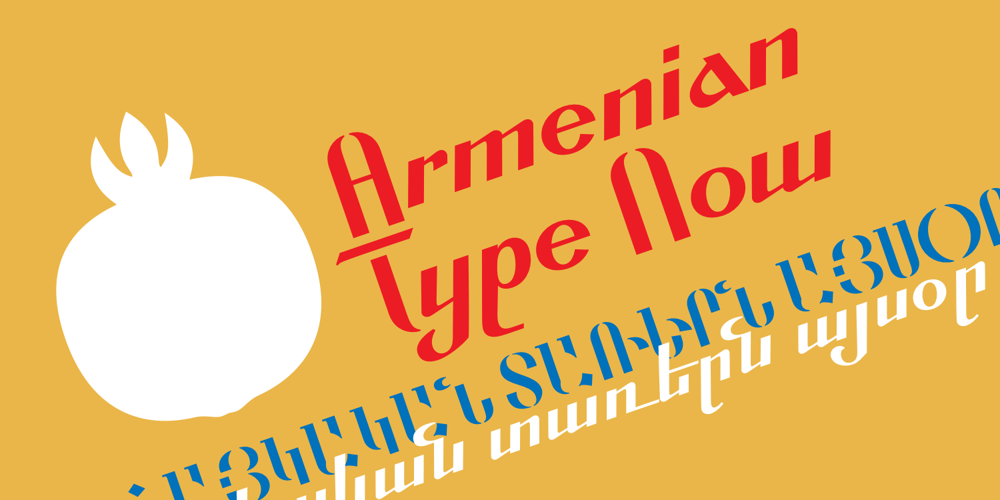
APF Lagoon Regular
APF Lagoon Regular font
APF Lagoon Regular Font Family was designed by Carolyn Puzzovio and published by Pomegranate. APF Lagoon Regular contains 1 styles and family package options. In 2007-8, Carolyn Puzzovio developed this OpenType typeface: Lagoon which is based on an Armenian model from the Mechitarist monastery, Venice, 1810. This project was supported by a grant from the AHRC (Arts & Humanities Research Council, UK) and won a first prize in the Granshan 08 type design competition. Oſten, Armenian digital types are designed to match the forms of Latin type characters and ‘Latinized’, by uprighting the forms; truncating ascenders and descenders and raising the x-height – but in this case the Latin characters in the OpenType font have been designed to blend in with the traditional Armenian proportions which are based on cursive forms – also incorporating some of the quirky shapes from the original model. Faithfully following the original created difficulties of ‘clashing’ characters, particularly those with long descenders, so the font contains over 100 alternative characters in the Armenian part, which will normally substitute automatically where necessary. The sloping lower case characters and upright capitals are traditional in Armenian – capitals are used less in the Armenian language. Three new characters for the Armenian unicode range are included: the Armenian dram (currency) symbol; the eternity symbol; and the index number symbol. This font which will be one of the first OpenType fonts to incorporate these newly unicoded characters.